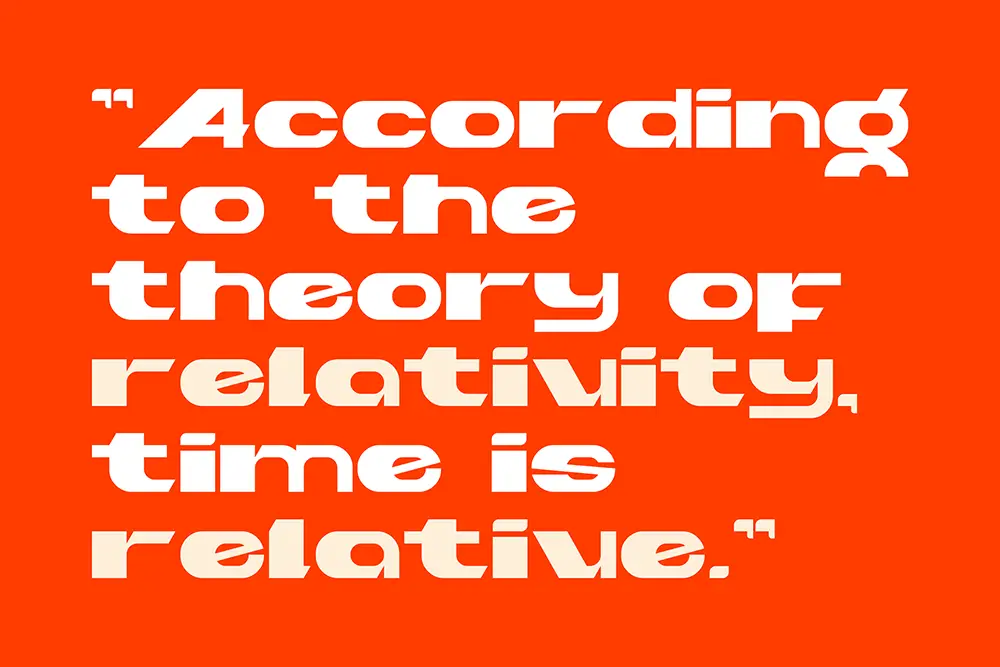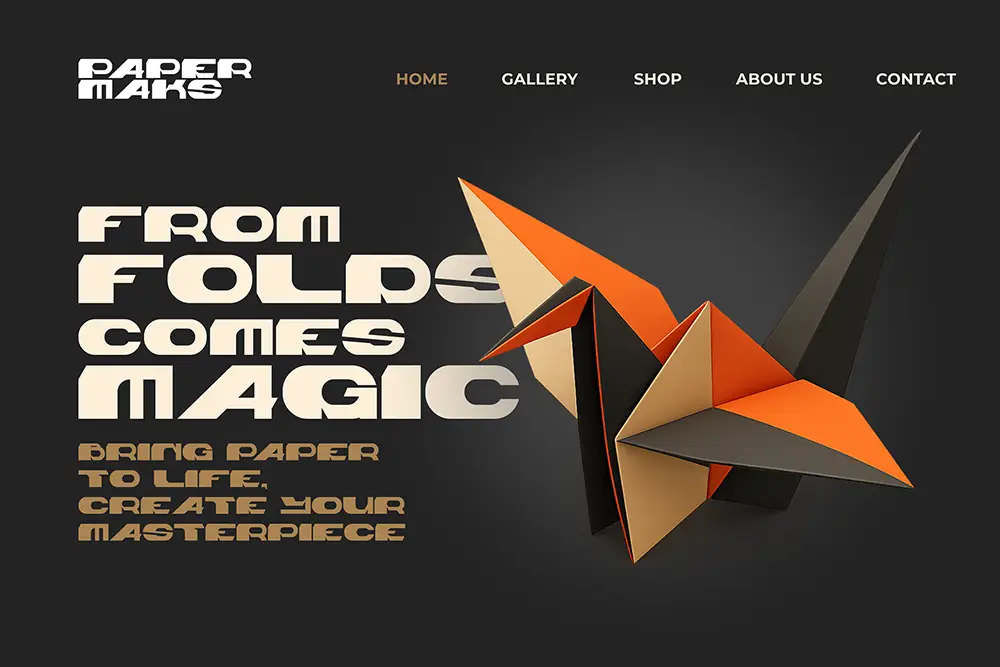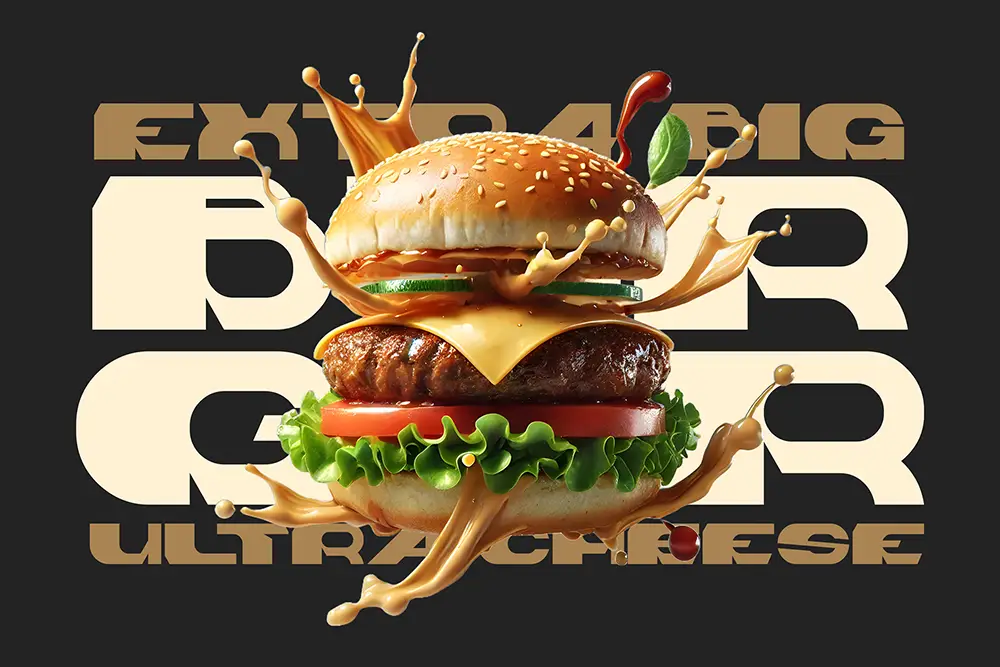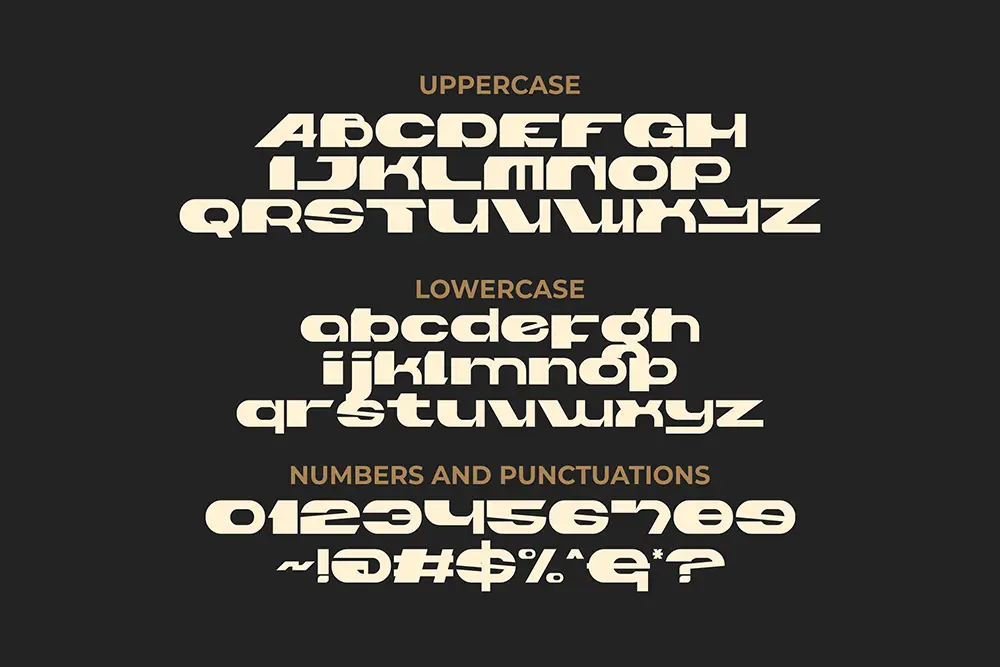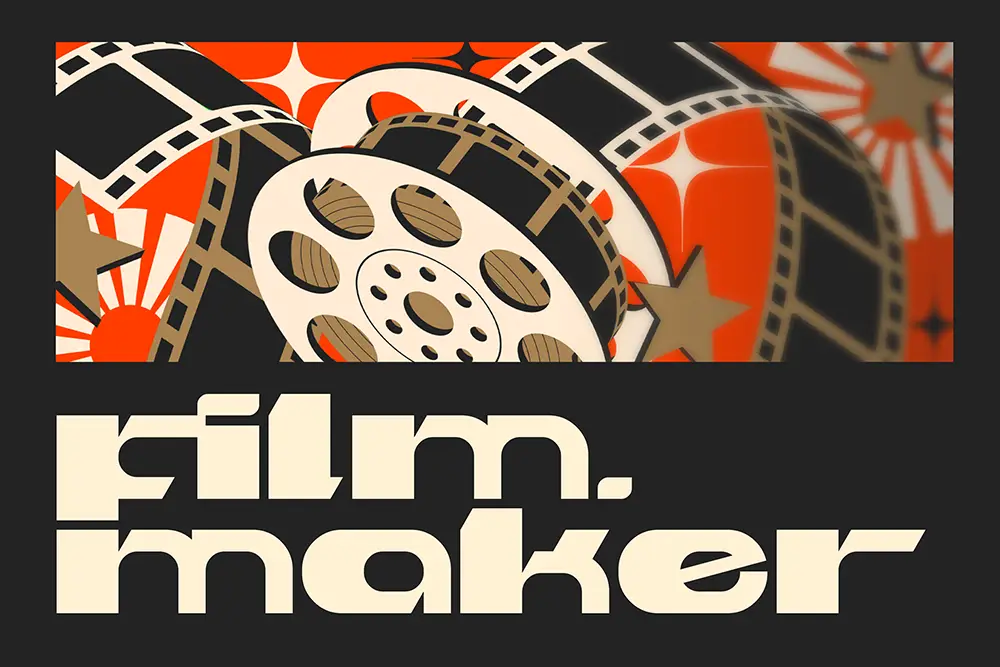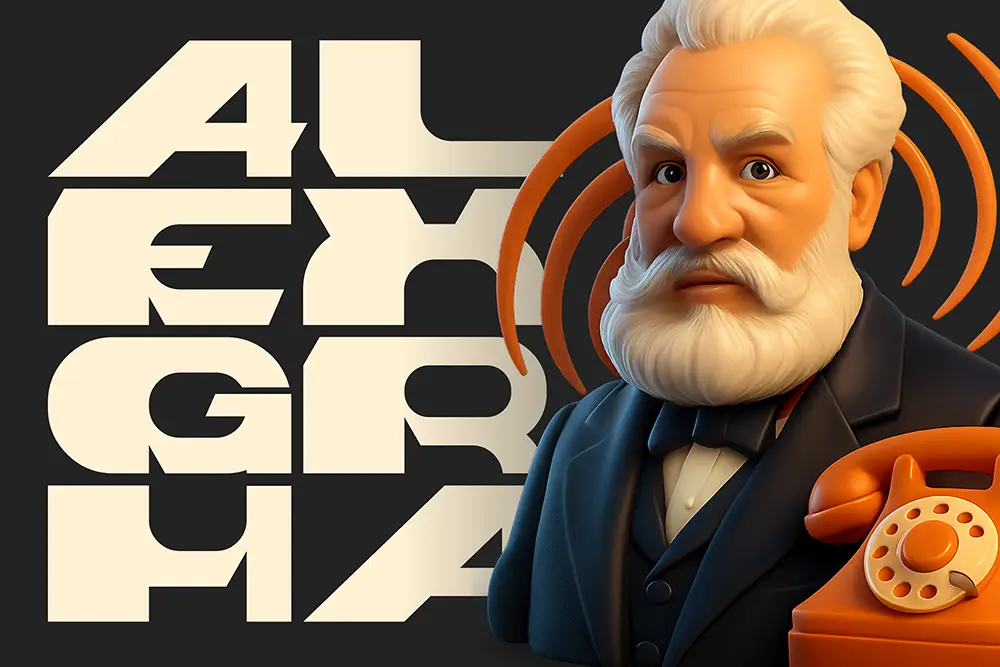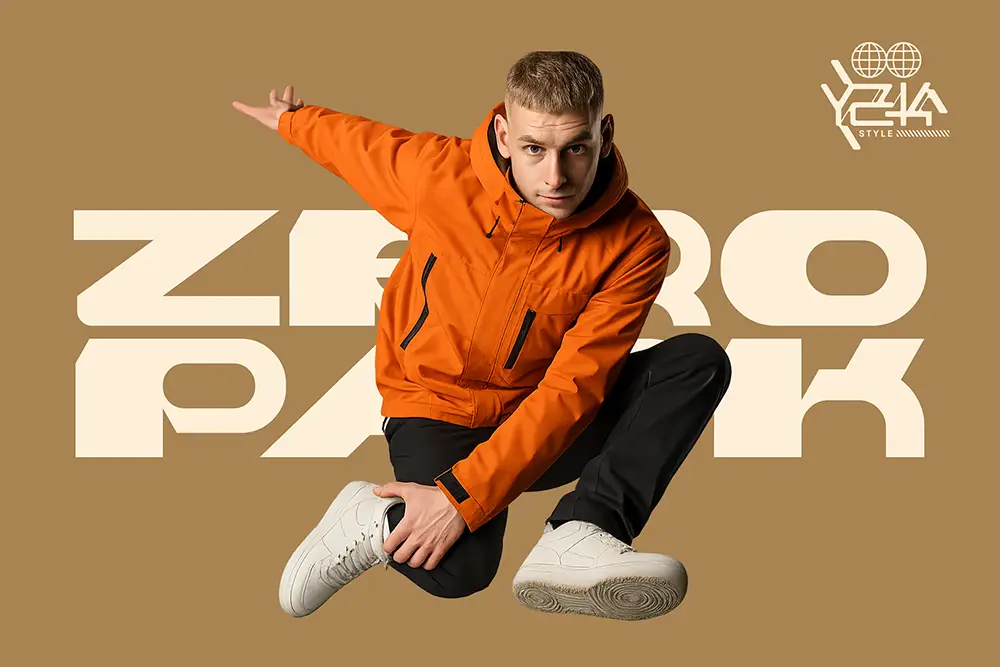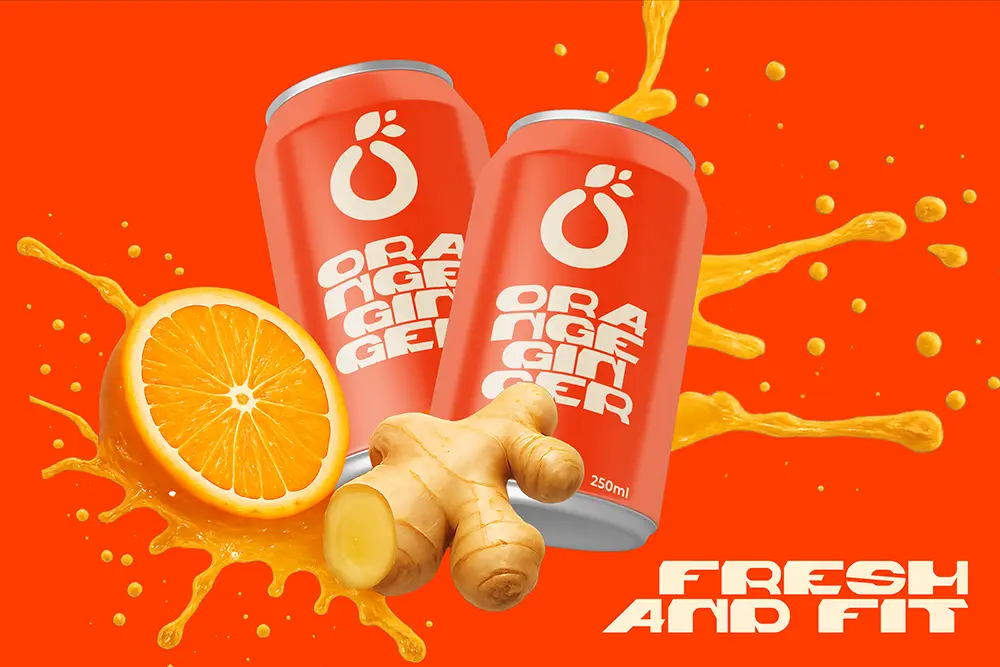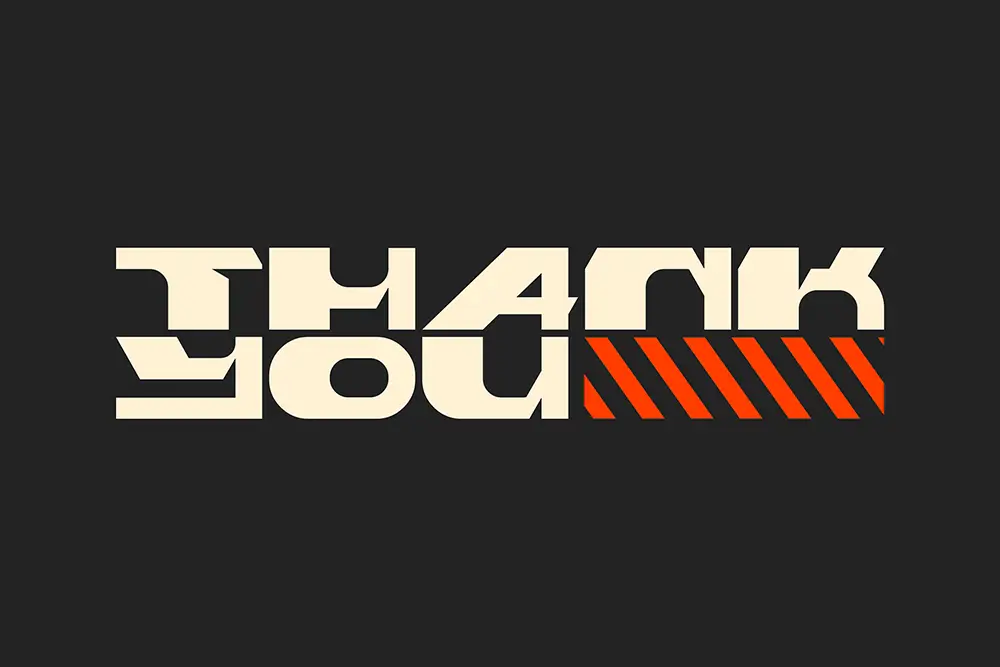
Typography is one of the most powerful tools in design. The right font can elevate a project from simple to extraordinary, and that is exactly what Bygen – Modern Display Font delivers. This typeface is a modern display font built for creative professionals who want to make their branding, posters, social media graphics, and digital projects stand out. Its bold geometric style, clean curves, and futuristic aesthetic make it a perfect choice for designers aiming to create impactful visuals that resonate with today’s audiences.
Modern Display Font for Bold Branding
Bygen is a modern display font designed with geometric precision and a contemporary edge. It blends minimalist shapes with futuristic styling, making it ideal for branding projects that demand attention. Whether you’re designing a cutting-edge tech startup identity, a striking poster, or an experimental digital artwork, Bygen delivers the versatility and strength you need.
Its thick strokes, sharp angles, and unique letterforms ensure that your typography never goes unnoticed. Unlike traditional typefaces, this modern display font thrives in large sizes—perfect for headlines, covers, and bold brand messages.
Perfect Balance of Style and Functionality
What makes Bygen special is its balance between creativity and usability. Many modern display fonts are visually appealing but lack readability. Bygen solves that problem with its carefully crafted glyphs that maintain legibility while still offering artistic flair. This means your headlines and logos won’t just look futuristic—they’ll also communicate clearly to your audience.
Designers across industries—branding, advertising, UI/UX, and digital marketing—are embracing Bygen as their go-to typeface for projects that require both innovation and professionalism.
Key Features of Bygen – Modern Display Font
- Uppercase & Lowercase: A complete set of uppercase and lowercase characters ensures flexibility in design.
- Multilingual Support: Covers extended Latin characters, making it suitable for global branding projects.
- Geometric Letterforms: Modern, bold, and futuristic aesthetic perfect for display use.
- High Readability: Despite its bold design, it remains easy to read in digital and print media.
- Versatility: Works seamlessly for logos, posters, packaging, social media, and website headers.
Why Designers Love Bygen
Designers love Bygen because it embodies the future of typography. The modern display font category often struggles with either being too experimental or too generic. Bygen hits the sweet spot—it is unique enough to stand out yet professional enough for corporate and commercial use.
Here are some reasons why creative professionals can’t get enough of Bygen:
- Brand Differentiation: Perfect for companies that want to stand apart in competitive markets.
- Global Appeal: With multilingual support, designers can confidently use Bygen for international projects.
- Designer-Approved Aesthetic: Its sleek geometric style has been tested and loved by professional designers for both print and digital applications.
Applications of Bygen in Modern Design
When it comes to applying a modern display font, Bygen is incredibly versatile. Here are just a few ways designers are using it to power up their creative projects:
1. Logo Design
Bygen’s futuristic and bold look makes it ideal for logos that need to stand out in crowded markets. Startups, creative agencies, and tech companies especially love its modern edge.
2. Posters and Advertising
Large headlines demand impact, and Bygen delivers exactly that. Whether for a music event, fashion poster, or product launch campaign, this modern display font ensures maximum visibility.
3. Web Design and Digital Media
In the digital age, first impressions matter. Bygen brings a clean yet futuristic vibe to website headers, social media posts, and YouTube thumbnails. Its geometric precision ensures readability across devices.
4. Packaging and Branding
If you want your packaging to scream modern innovation, Bygen is the answer. From tech gadgets to lifestyle products, it transforms ordinary designs into futuristic statements.